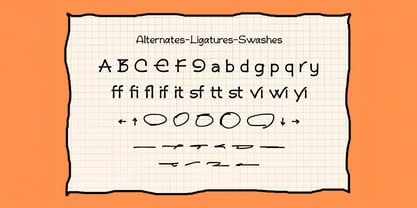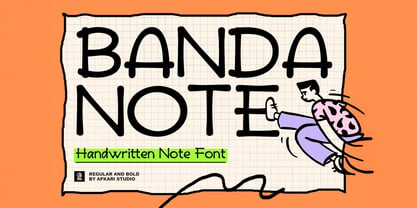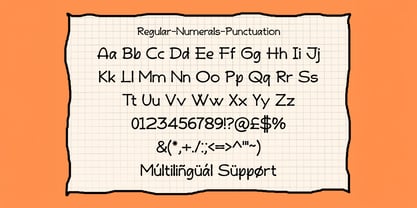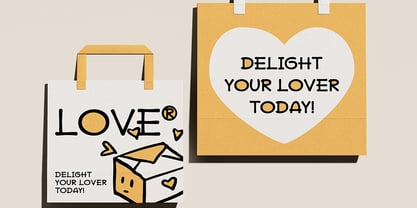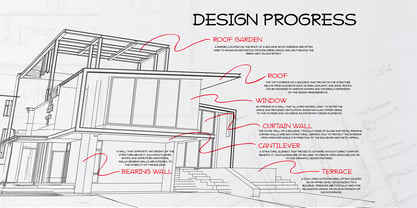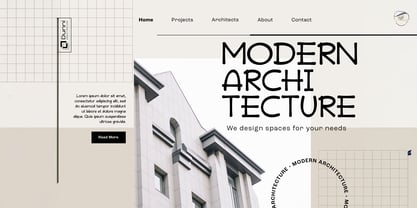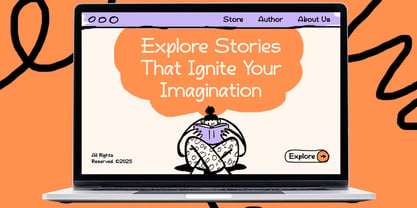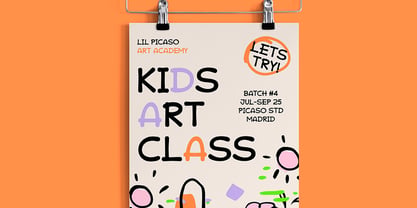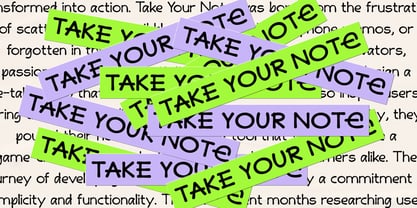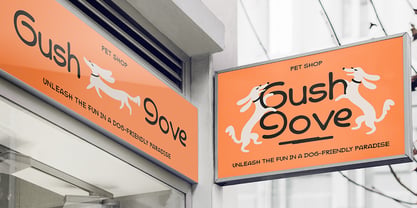
Banda Note
Die Schriftfamilie Banda Note wurde von Musthafa Kamal Emje entworfen und von Afkari Studio veröffentlicht. Banda Note enthält 2 Stile und Familienpaketoptionen. Mehr über diese Familie
Banda Note - Handwritten Marker Note Font
Banda Note is a casual and expressive handwritten font that replicates the natural flow of marker handwriting. Designed for authenticity and versatility, this font comes in Regular and Bold styles, allowing you to switch between a relaxed, personal touch and a stronger, more impactful look. Whether you're designing notes, journals, branding, or digital content, Banda Note brings warmth and personality to your work.
Highlighted Features:
* Complete set of uppercase and lowercase letters, numerals, and punctuation marks
* Unique alternates and ligatures for additional character variety
* Multilingual support includes characters like ä, ö, ü, Ä, Ö, Ü, ß, ¿, and ¡
Banda Note goes beyond mere functionality; it becomes a source of inspiration and creativity. Its flexibility allows it to fit effortlessly into digital notes, quote designs, book covers, logos, posters, menu layouts, apparel designs, scrapbooks, comic illustrations, magazine headers, and many other creative projects.
Add a fun, handwritten charm to your designs with Banda Note. Whether you prefer a subtle touch with Regular or a bold statement with Bold, this font is perfect for projects that need a natural and expressive feel!